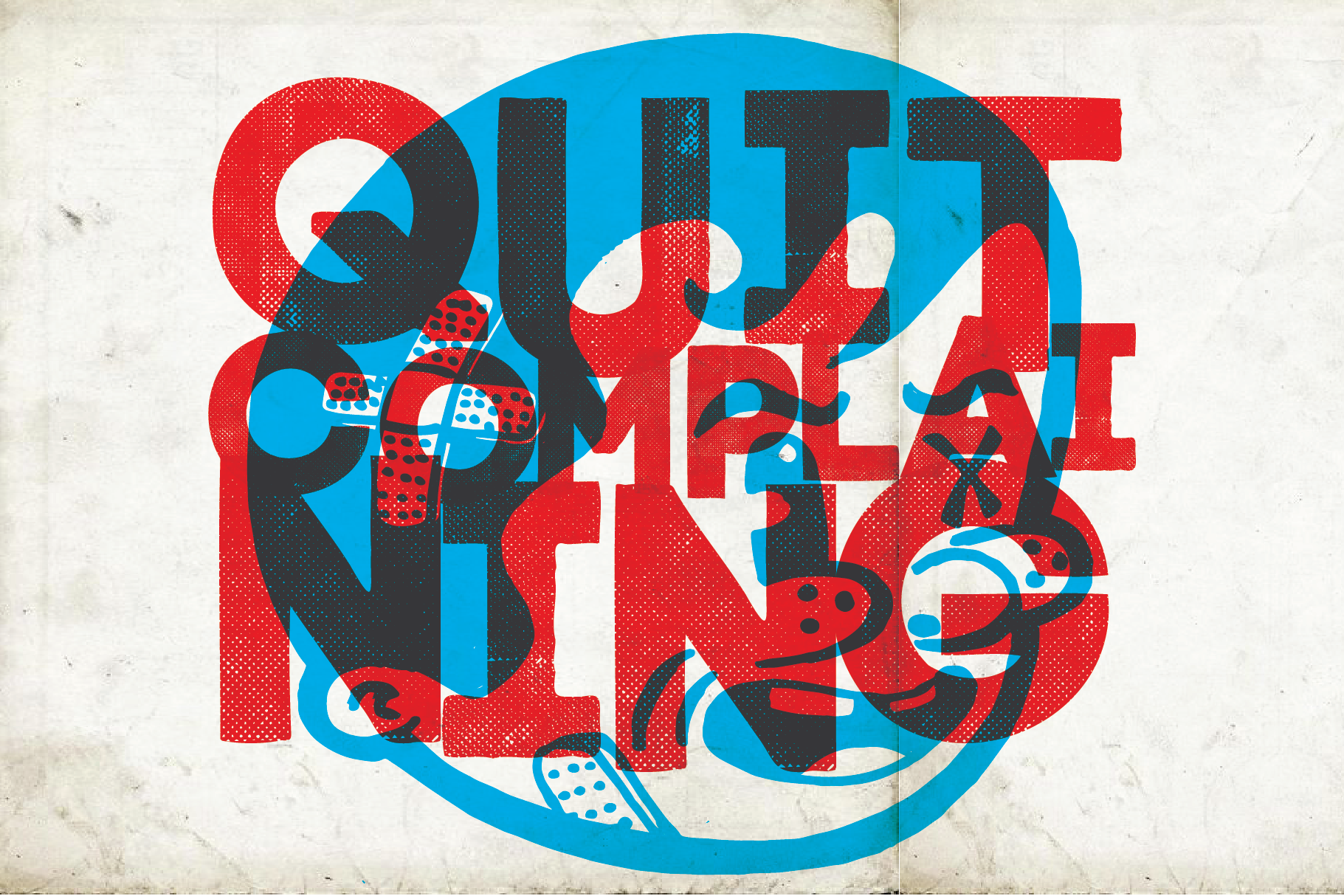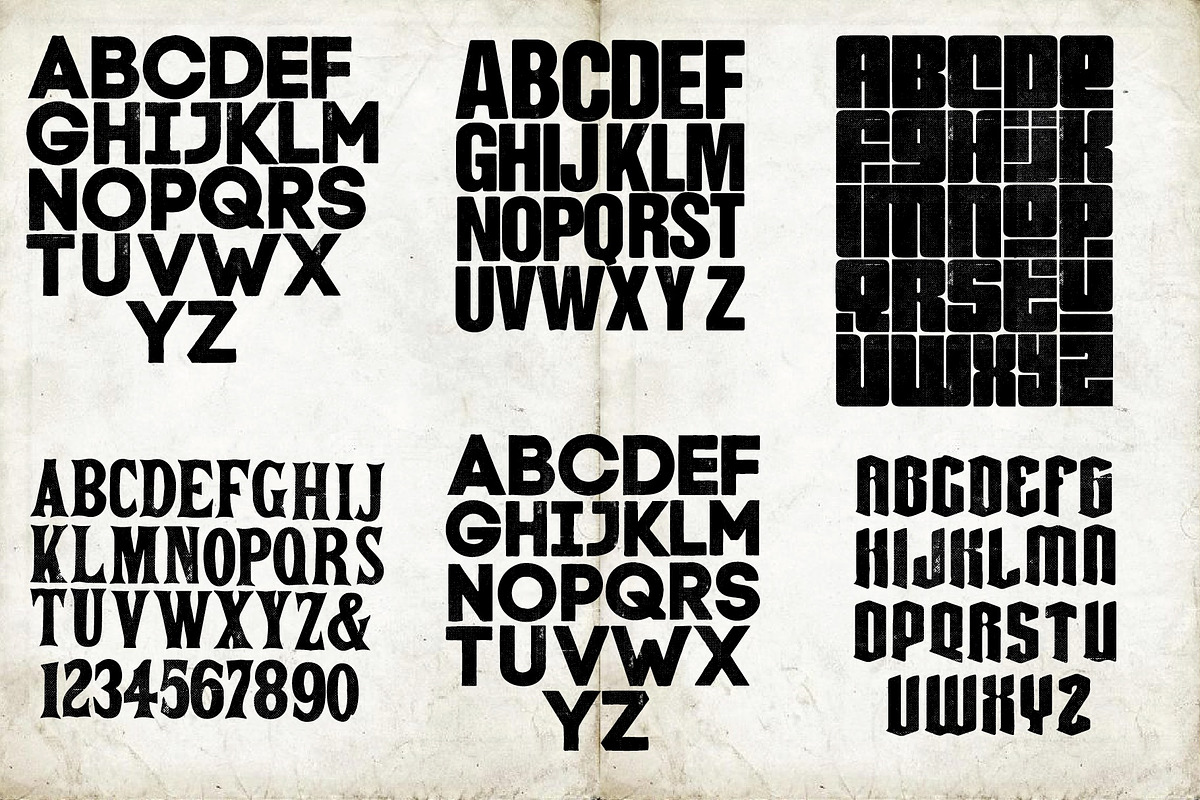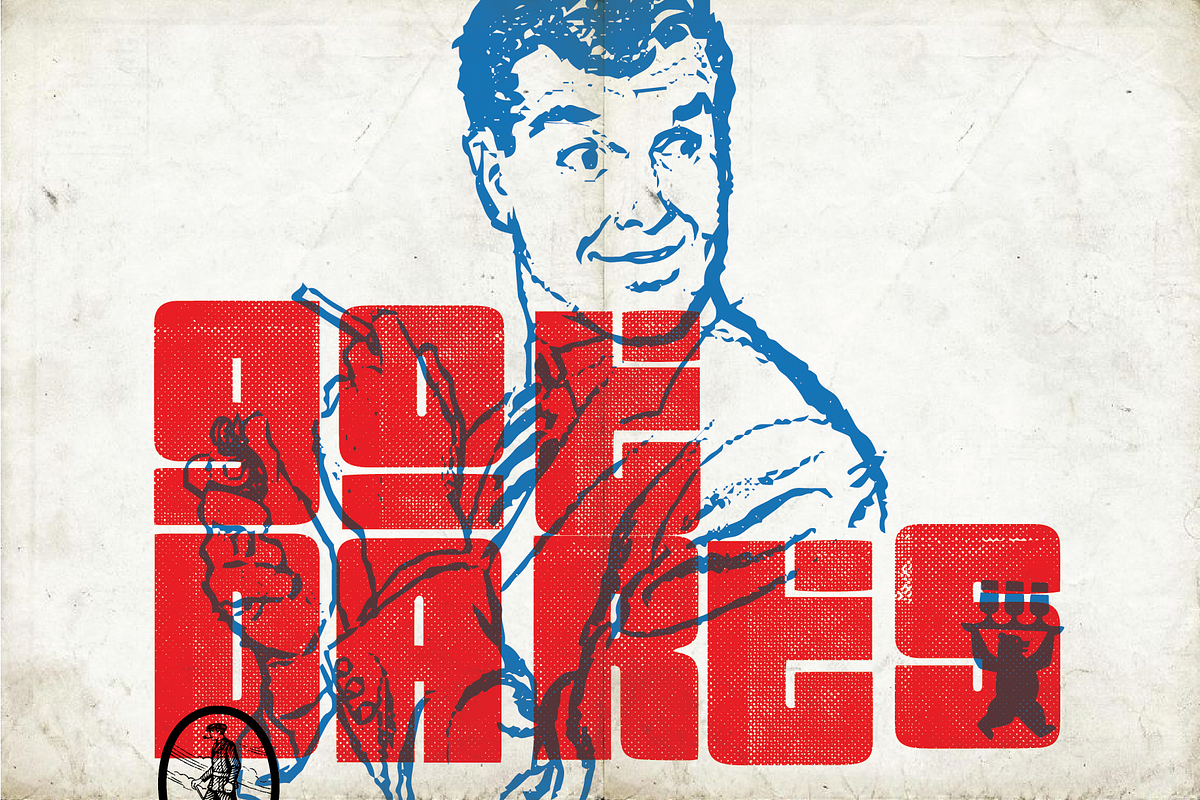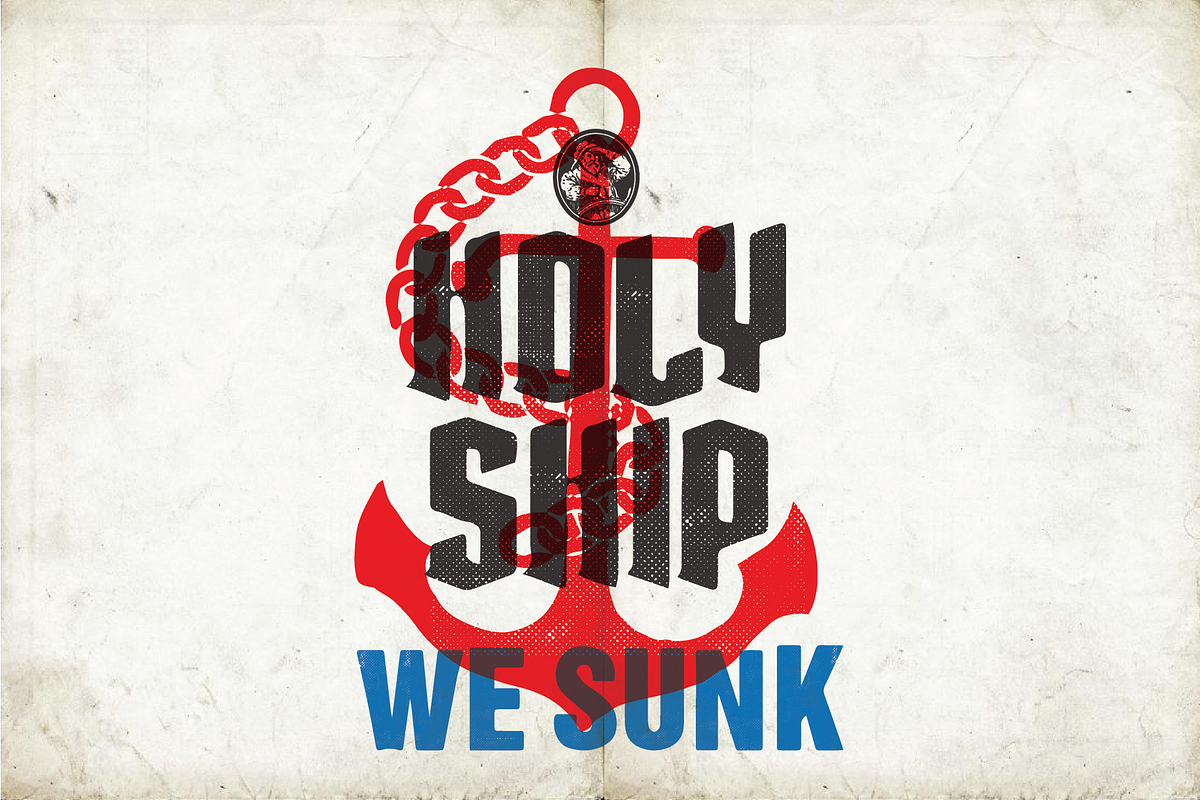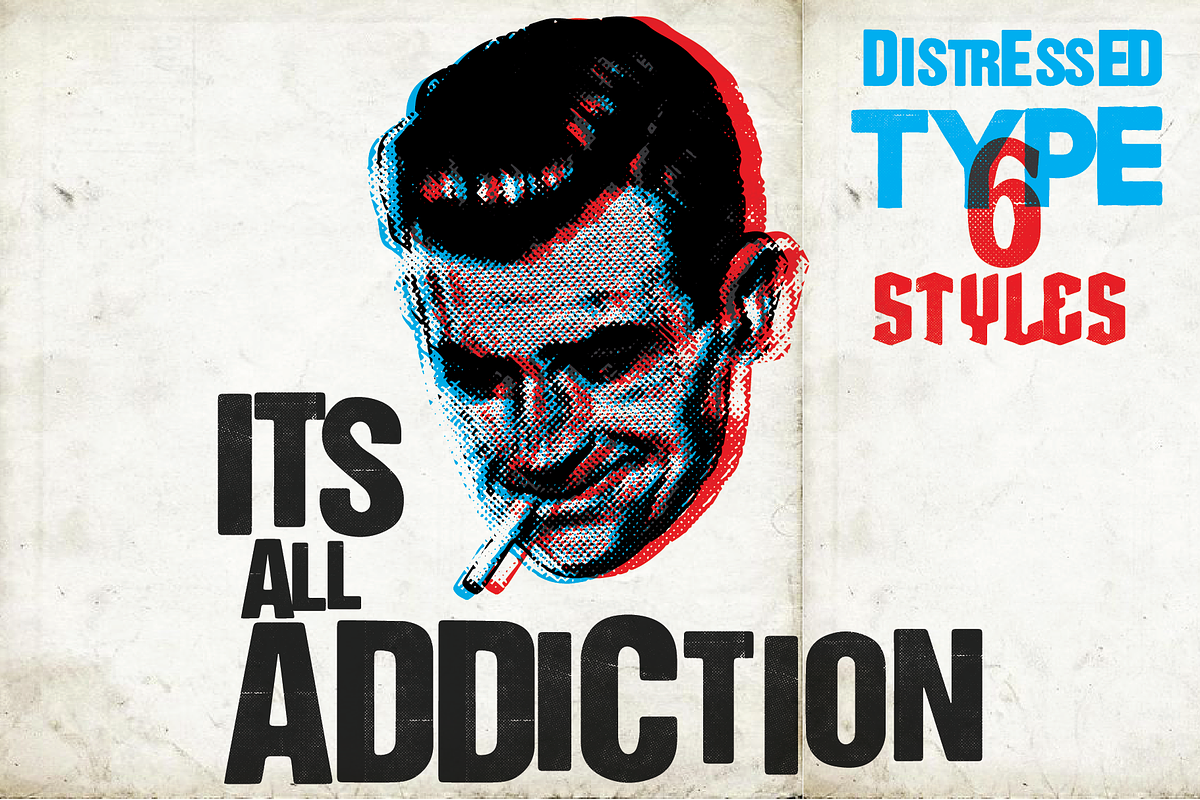
Distressed Font Collection
A collection of five vector fonts that can be used for a ton of fun projects. These are all distressed fonts and perfect for posters, postcards, art collages, editorials, and any other creative idea you can wrangle up.